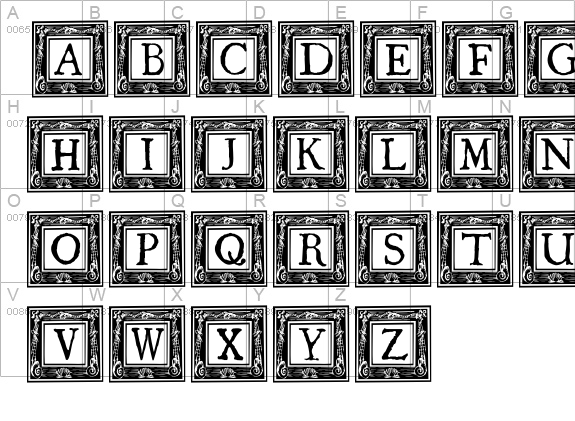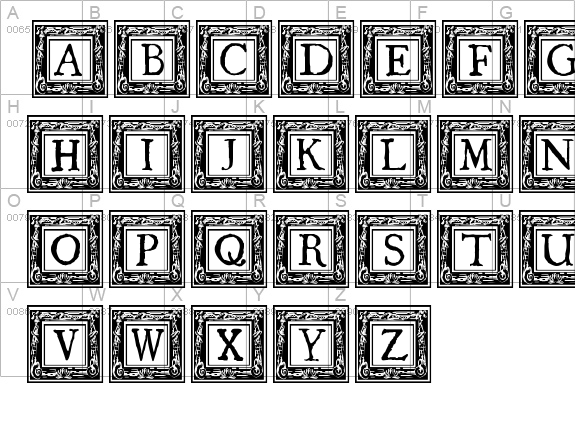
QuaNauticale_Initials_No2 Font Details
Introducing QuaNauticale_Initials_No2, a stunning and captivating font that will transport you to the depths of creativity. With its unique and intricate design, this font is sure to make a bold statement in any project. QuaNauticale_Initials_No2 encompasses the essence of the ocean, with its fluid lines and intricate details reminiscent of swirling waves. Each letter is meticulously crafted, creating a harmonious blend of elegance and strength. This font is perfect for a wide range of projects, from branding and logo design to invitations and posters. Its versatility allows it to adapt to various styles and themes, making it a valuable asset for any designer or creative professional. What sets QuaNauticale_Initials_No2 apart is not only its visually stunning appearance but also the fact that it is freely available to download at FontsMarket.com. This means that you can enhance your designs without any cost, allowing you to unleash your creativity without any limitations. Whether you're a seasoned designer or just starting your creative journey, QuaNauticale_Initials_No2 is a font that will undoubtedly elevate your work to new heights. So why wait? Download this exceptional font today and let your imagination run wild.